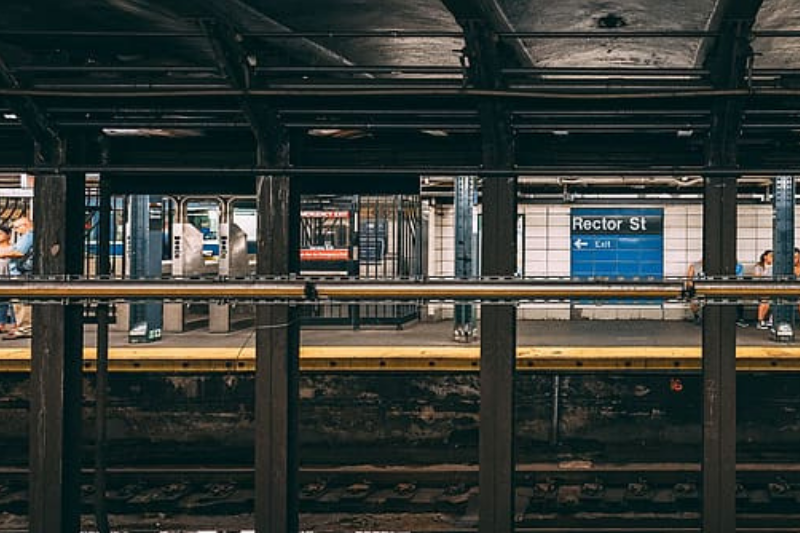
NYC Subway Font Generator
The New York City Subway is one of the world's largest and busiest public transportation systems. It serves millions of passengers daily, providing a vital means of transportation throughout the city's five boroughs. The subway system is renowned for its extensive network of routes, iconic stations, and distinctive visual identity, including its typography.
About NYC Subway Font
The NYC Subway system is called "Helvetica." It is a widely recognized and influential sans-serif typeface designed by Max Miedinger and Eduard Hoffmann in the 1950s. The typography in the NYC Subway font features clean, simple, and highly legible letterforms, making it ideal for conveying essential information to passengers quickly and efficiently.
The Helvetica About the NYC Subway system is characterized by its uniform stroke widths, balanced proportions, and neutral appearance. The letterforms are designed to be easily readable from a distance, ensuring commuters can navigate the subway system effectively. The boldness and clarity of the Helvetica font contribute to its timeless and iconic status.
The popularity and recognition of the NYC Subway font have led to the development of NYC Subway font generators. The NYC Subway font generator now offers customization options, allowing users to input their desired text and instantly see it transformed into the NYC Subway font style.
Whether for creating subway-themed artwork, designing graphics, or expressing their love for New York City, these generators offer a user-friendly and accessible means to evoke the iconic NYC Subway font style.
The NYC Subway system has become synonymous with the city's public transportation network. Its legibility, simplicity, and timeless design make it ideal for conveying essential information to subway passengers.